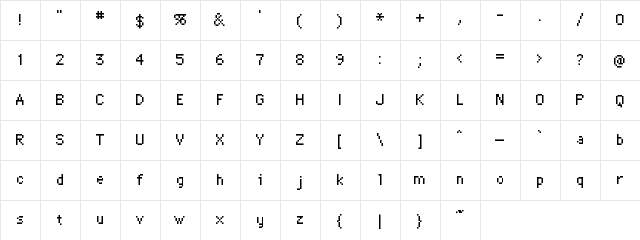
Geneva 9 Regular
| Designer | Kelsey Higham |
Design Context for Geneva 9 Typeface
Geneva 9 takes a measured approach to typography — its balanced proportions and neutral character make it a reliable workhorse for both digital and print work.